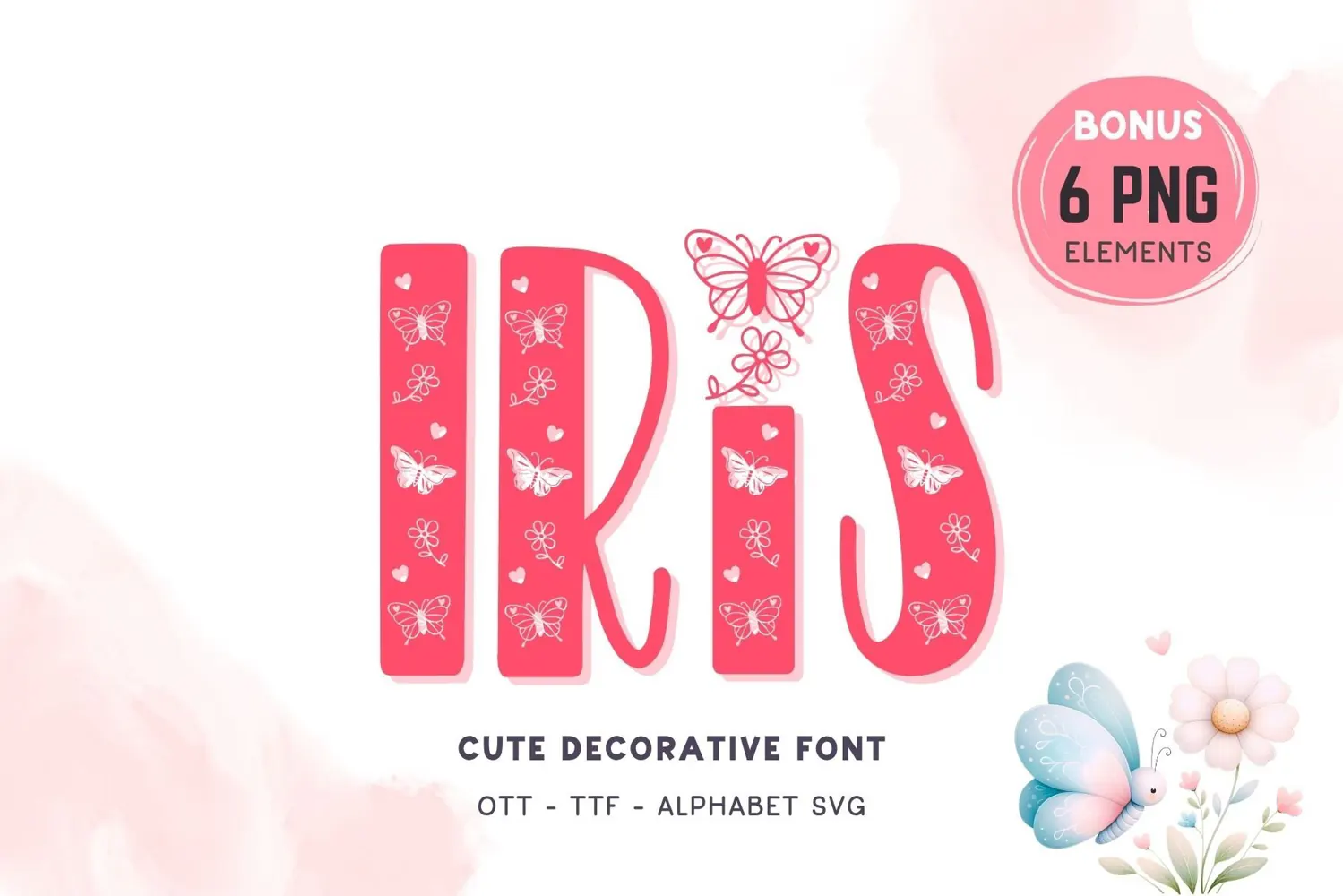
Iris is a cute decorative font with a sweet butterfly and floral pattern inside the letters. This font has a lovely, feminine look with soft Valentine and spring vibes, perfect for romantic crafts, kids designs, cute quotes, greeting cards, stickers, mugs, shirts, tote bags, classroom projects, and Cricut or Silhouette crafts.